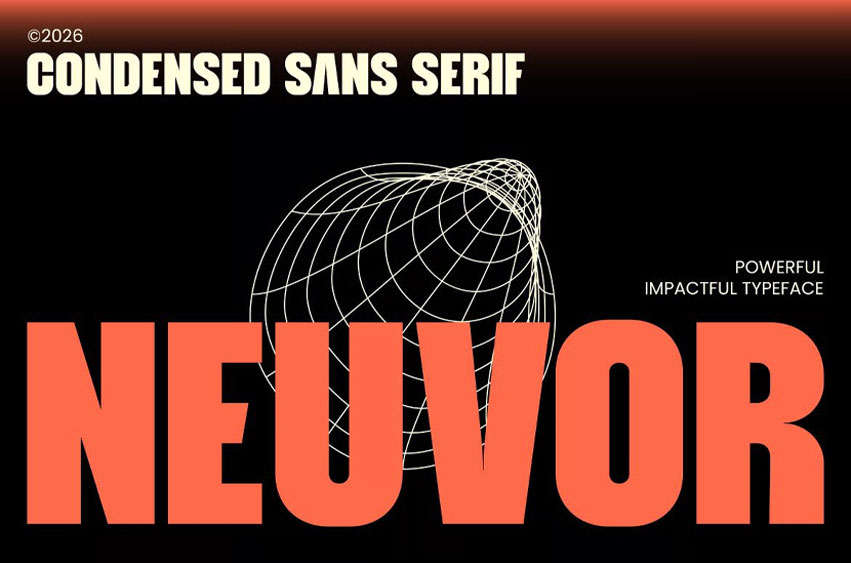
Neuvor Font is a bold condensed display sans font with a powerful, modern, and industrial style. Designed with tall letterforms, heavy shapes, and strong visual impact, this font is perfect for bold headlines, logos, posters, editorial titles, music covers, event promotions, technology branding, gaming graphics, social media visuals, and modern creative layouts.
With its condensed structure and impactful personality, Neuvor brings a strong, clean, and memorable look to any design that needs bold typography and modern display energy. This font works best for large display use such as titles, visual identity, promotional graphics, posters, and digital design projects.